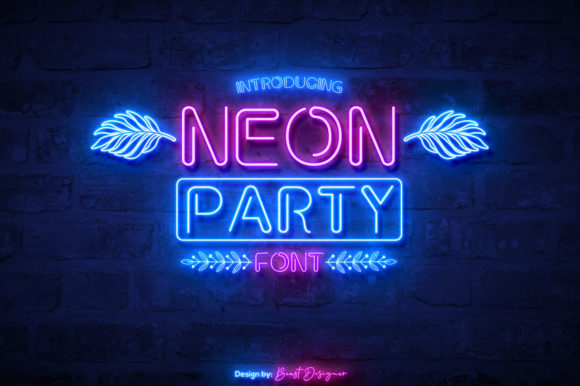
Introducing Neon Party Font, a nostalgic neon sign display font that will transport you back to the vibrant streets of the 80s. Carefully handcrafted by the talented Beast Designer, this font is not just a typographic masterpiece, but a mesmerizing journey through time.
Imagine your camping signs illuminated with the dazzling glow of Neon Party Font. With its captivating curves and electrifying energy, this font will instantly grab the attention of anyone passing by. Whether you're advertising a campground, organizing a camping event, or simply adding a touch of retro charm to your designs, Neon Party Font is your ultimate choice.
Why settle for ordinary fonts when you can infuse your projects with the magic of nostalgia? Neon Party Font effortlessly captures the essence of neon signs, evoking a sense of excitement and adventure. Let your designs stand out from the crowd and create an unforgettable experience for your audience.
But Neon Party Font doesn't stop at aesthetics alone – it also offers unbeatable versatility. From bold headlines to eye-catching logos, this font adapts to any project with ease. Its bold and legible characters ensure optimal readability, even from a distance. No matter the size or medium, Neon Party Font delivers a professional and polished look every time.